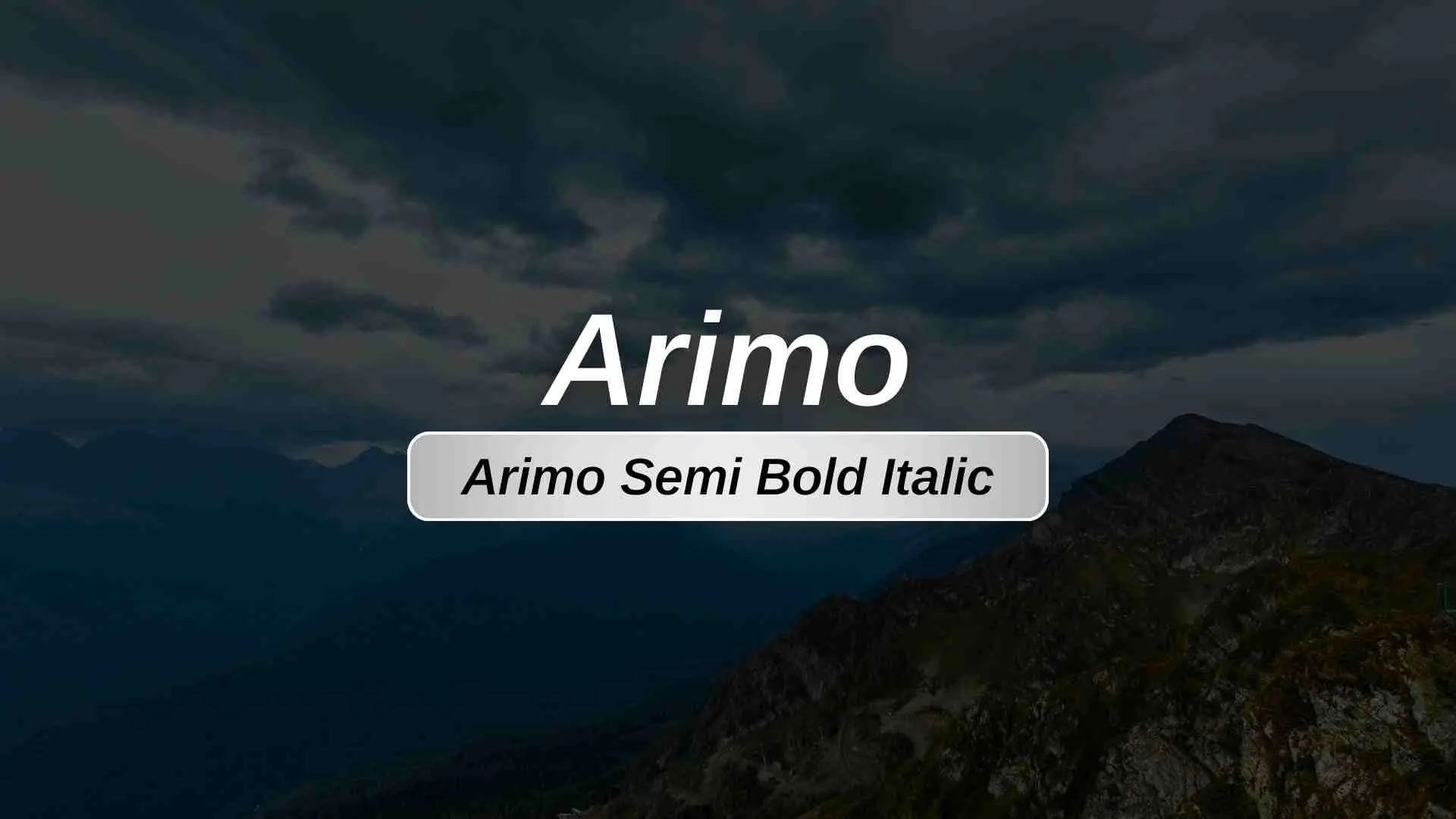
Arimo Semi Bold Italic
Arimo Semi Bold Italic Font
The font Arimo Semi Bold Italic, designed by Steve Matteson, falls under the Sans Serif category & Arimo font family. Its smooth, flowing letterforms make it a versatile choice for projects that require both elegance and readability. Arimo is particularly well-suited for Branding, Body Text and Paragraphs, Corporate and Business Documents, User Interfaces (UI) and Web Design and General Use. With its balance of simplicity and decorative appeal, this font brings a polished touch to both personal and professional designs.